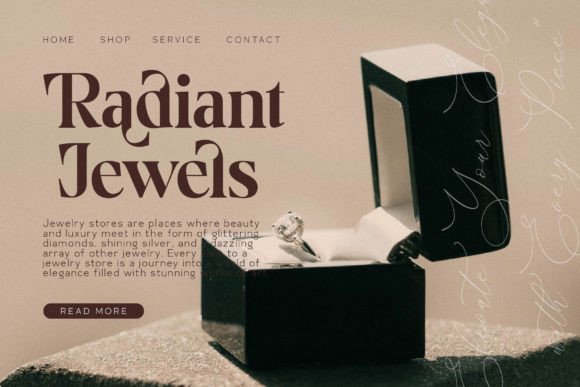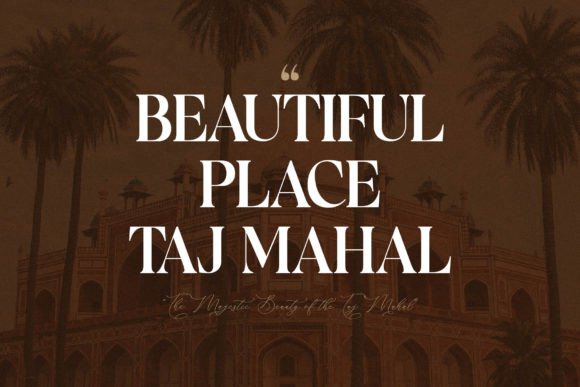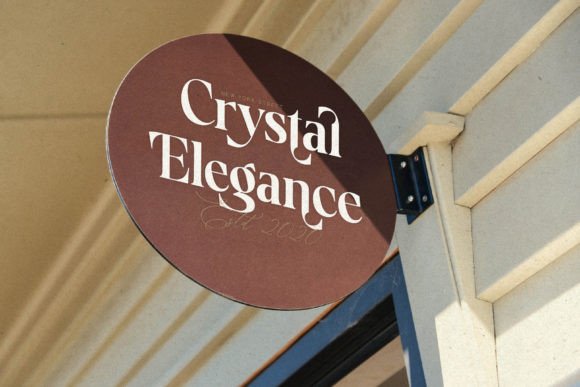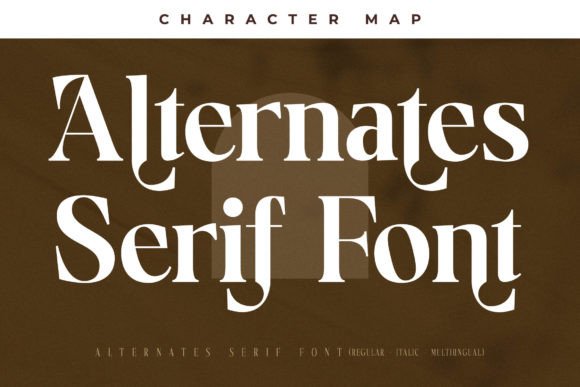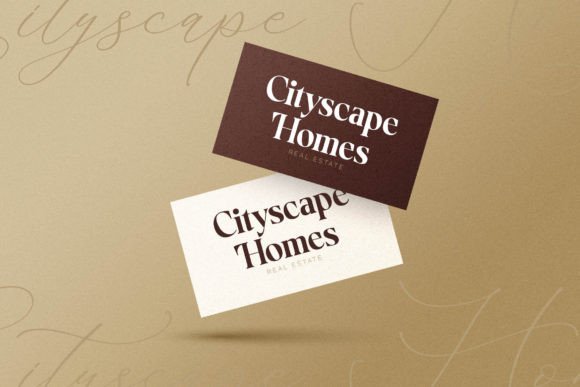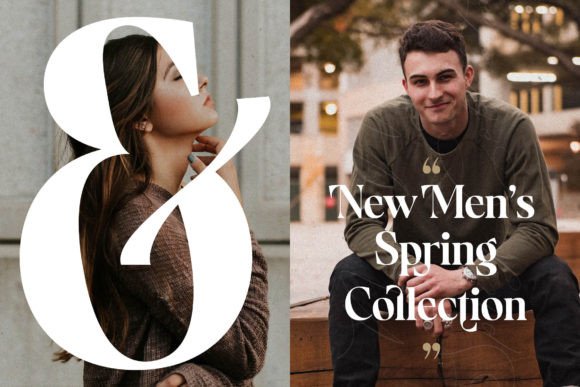
The Elegance of Brigfted Font: A Designer’s New Best Friend
I still remember the project that led me to discover the Brigfted font. I was working on a luxury brand’s logo design, and I needed a typeface that exuded elegance and sophistication. After hours of scouring through font libraries, I stumbled upon Brigfted, and it was love at first sight! ✨ The unique blend of modern and classic serif elements instantly caught my attention, and I knew I had found the perfect fit.
An Honest Review of Brigfted Font
What I Love About Brigfted
- ✅ Unique Style: Brigfted has its own distinct personality that sets it apart from other serif typefaces.
- ✅ Elegant and Luxurious: The font’s classic and modern elements make it perfect for high-end branding, logos, and designs.
- ✅ Versatile: Brigfted can be used for a wide range of projects, from book and movie titles to fashion brands and magazines.
- ✅ Readable: The font’s clear and crisp lines ensure excellent readability, even at smaller sizes.
While Brigfted is an excellent font, there are a few minor quirks to be aware of: 🤔
- ⚠️ Limited Character Set: Brigfted may not have an extensive character set, which could limit its use for certain languages or projects.
- ⚠️ Not Suitable for Body Text: Due to its elegant and luxurious nature, Brigfted might not be the best choice for lengthy body text.
A Practical Guide to Using Brigfted Font
- Experiment with OpenType features, such as Stylistic Alternates and Glyphs, to add visual interest to your design.
Brigfted’s creator drew inspiration from classic serif fonts, infusing them with modern elements to create a unique and elegant typeface. The result is a font that’s both timeless and contemporary.
| Author | Storytype Studio |
Q: What makes Brigfted font unique?
A: Brigfted’s blend of modern and classic serif elements sets it apart from other typefaces.
Q: Is Brigfted suitable for body text?
A: While Brigfted is elegant and luxurious, it might not be the best choice for lengthy body text due to its refined and elegant nature.